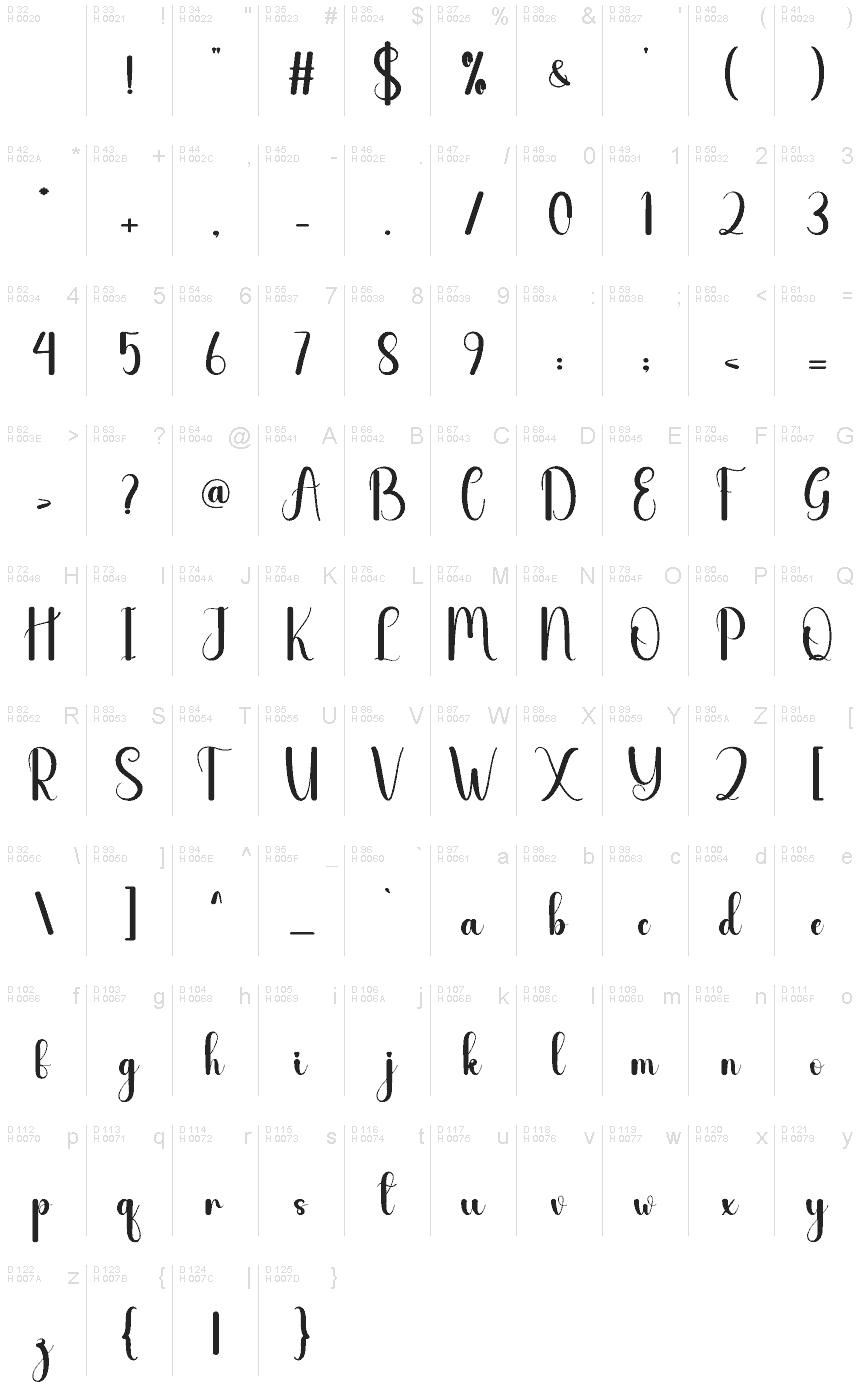
Cloudia
Cloudia font is a sweet and friendly handwritten display font created by Andi Moz. Its elegant and whimsical style, with a modern script expression, brings a warm and inviting charm to your designs. The fluidity of this handwritten typeface contributes to its playful yet sophisticated appearance.
A free handwritten font, Cloudia can add flavor to wedding invitations, cards, children's books, greeting cards, gift packages writing all types of event-related items. Use it for branding and packaging or logos for product advertisements that should stand out. Posters are another great example of an area where the playful style is highly attractive when using this typeface.